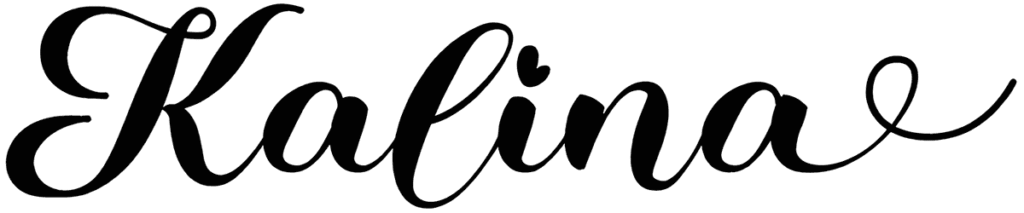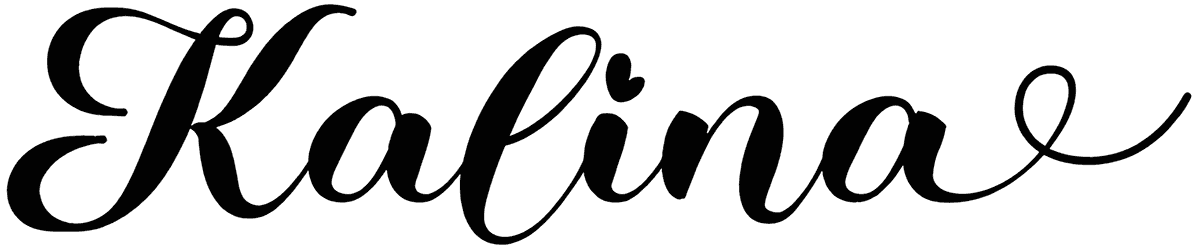
Kalina Font
Kalina font is a beautiful form of written expression that can bring elegance and sophistication to any project. This love font, with its smooth and graceful lines, is written like musical notes and gives every sentence a unique rhythm and melody.
Whether you’re designing wedding invitations, creating a logo for your business, or simply adding style to a personal project, this handwritten font can help make your text stand out in a way that’s timeless. And it is also memorable.